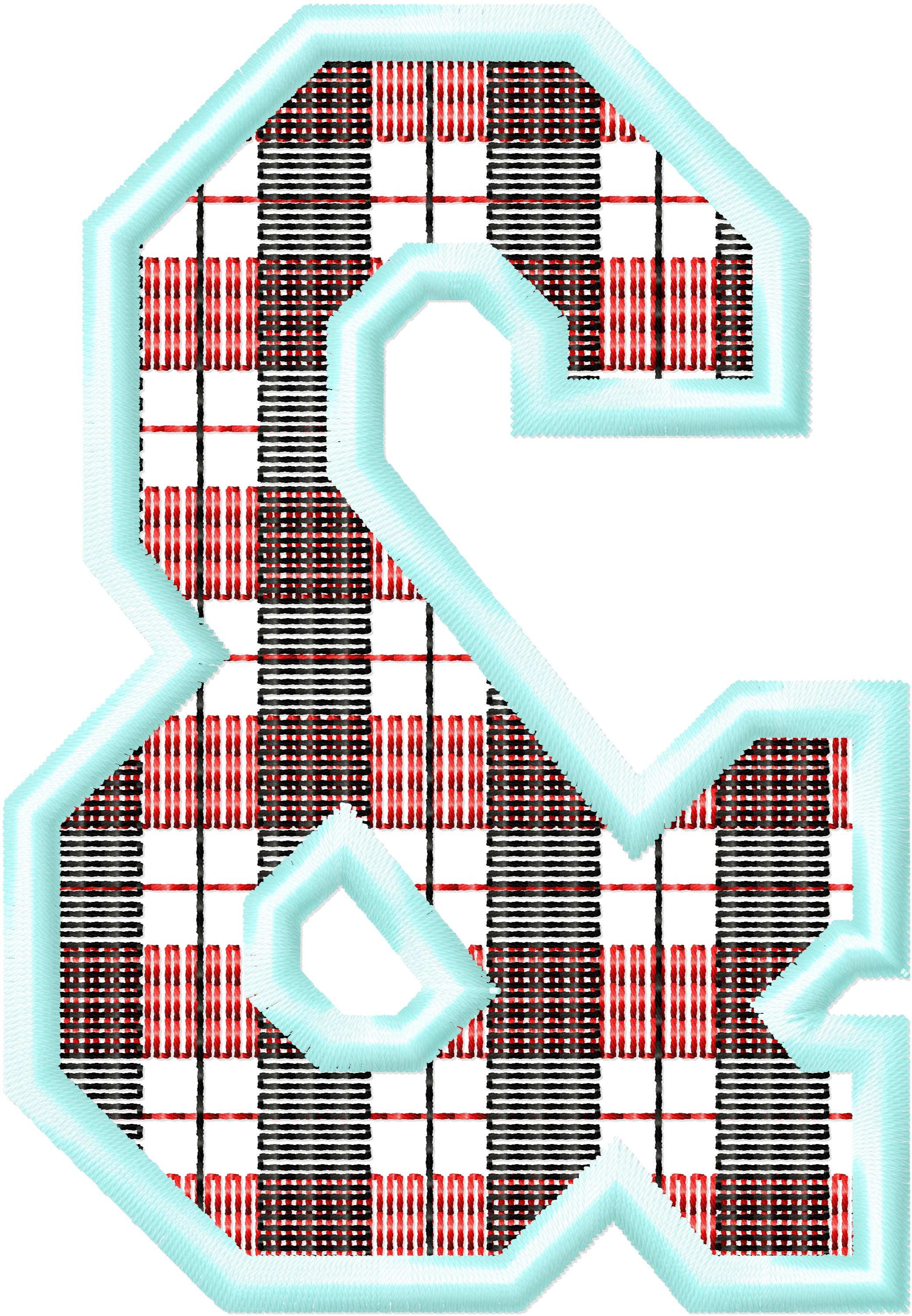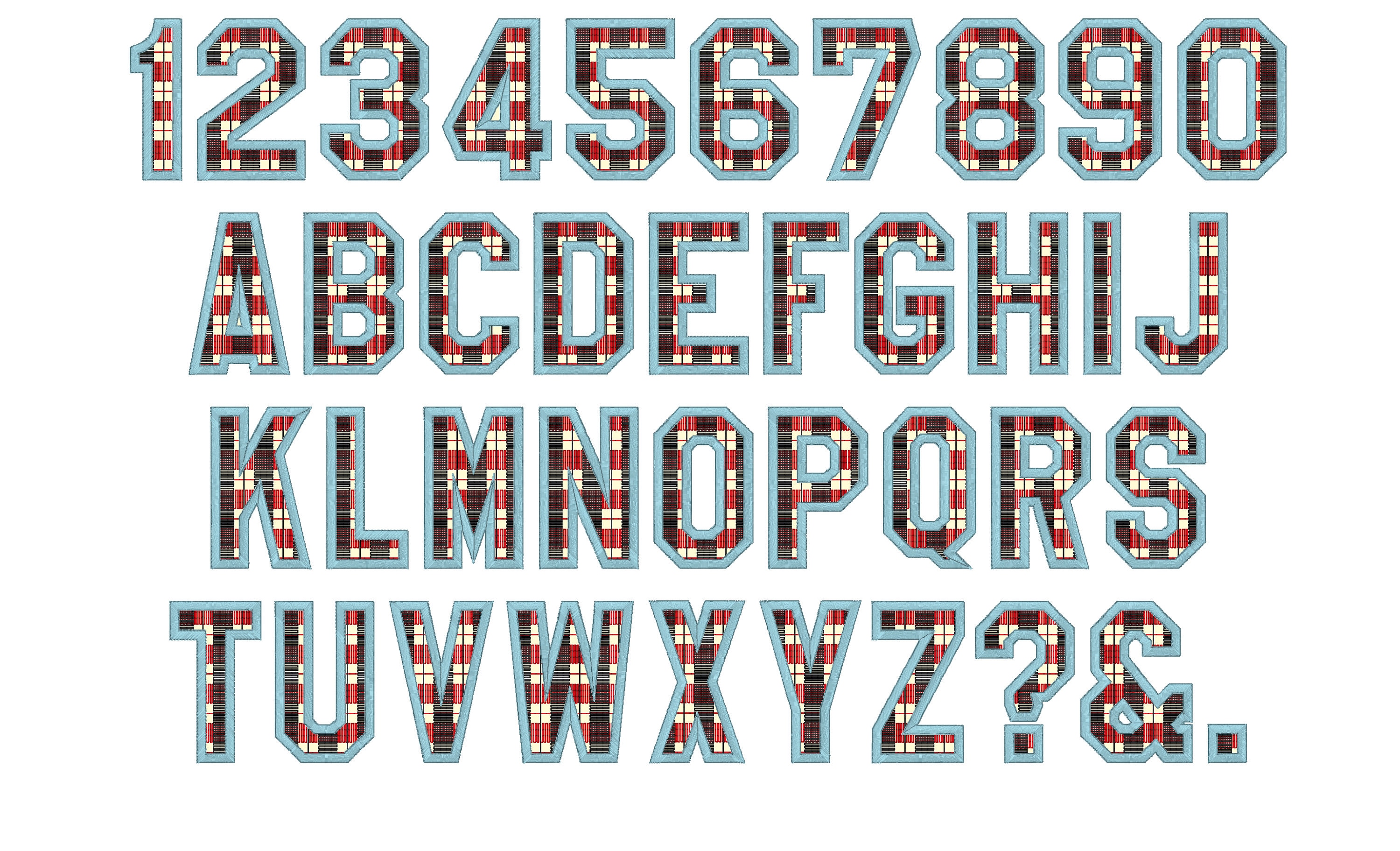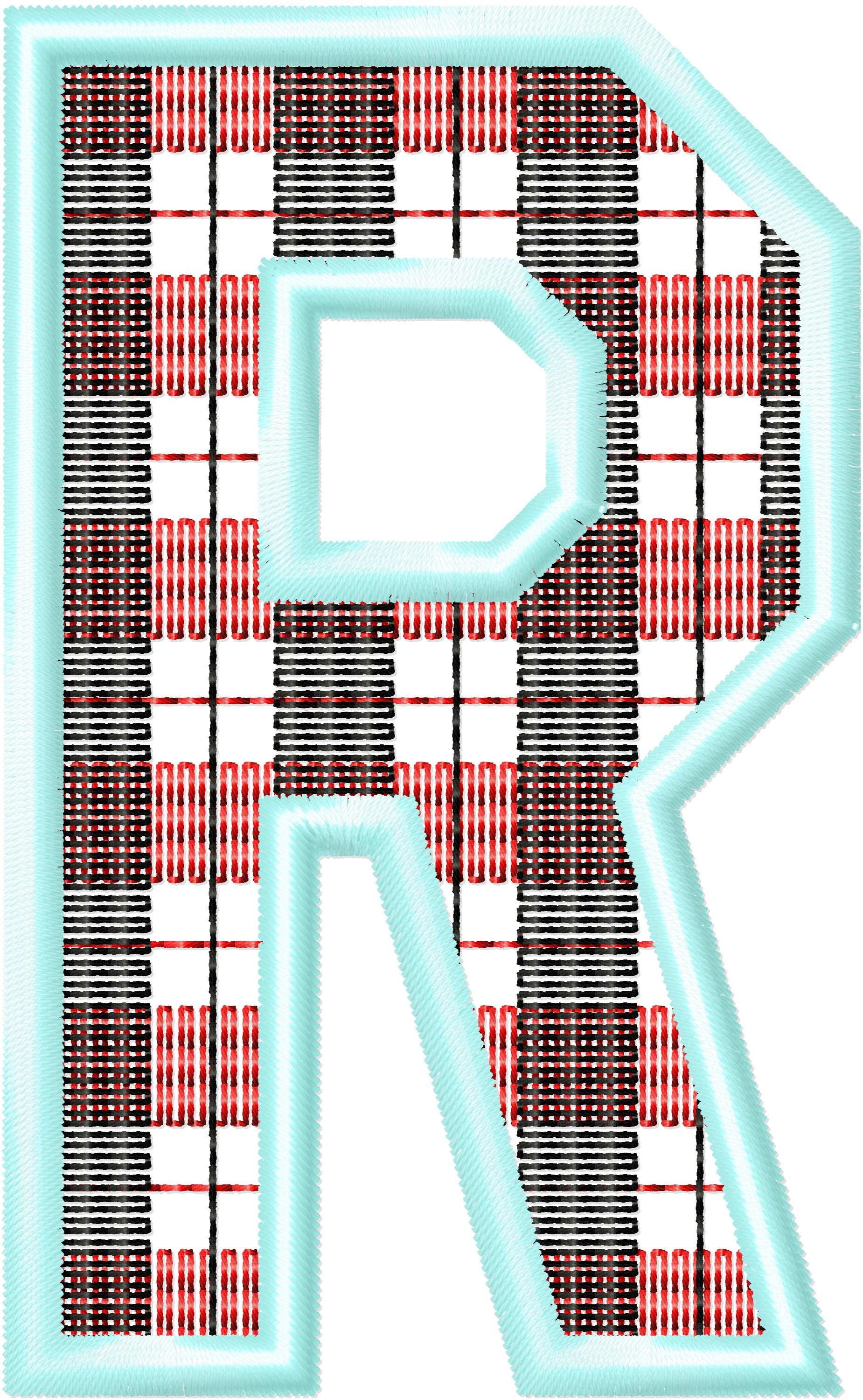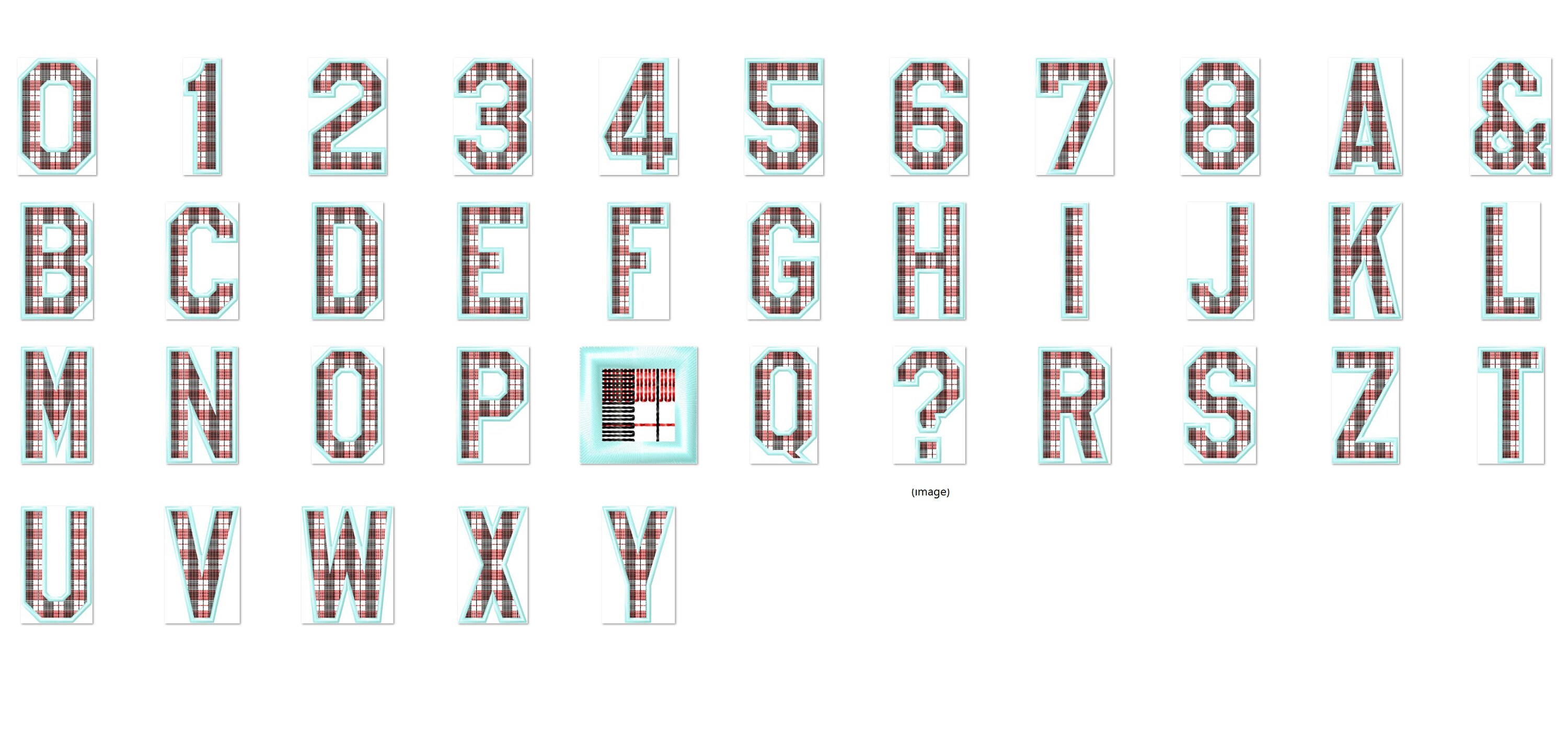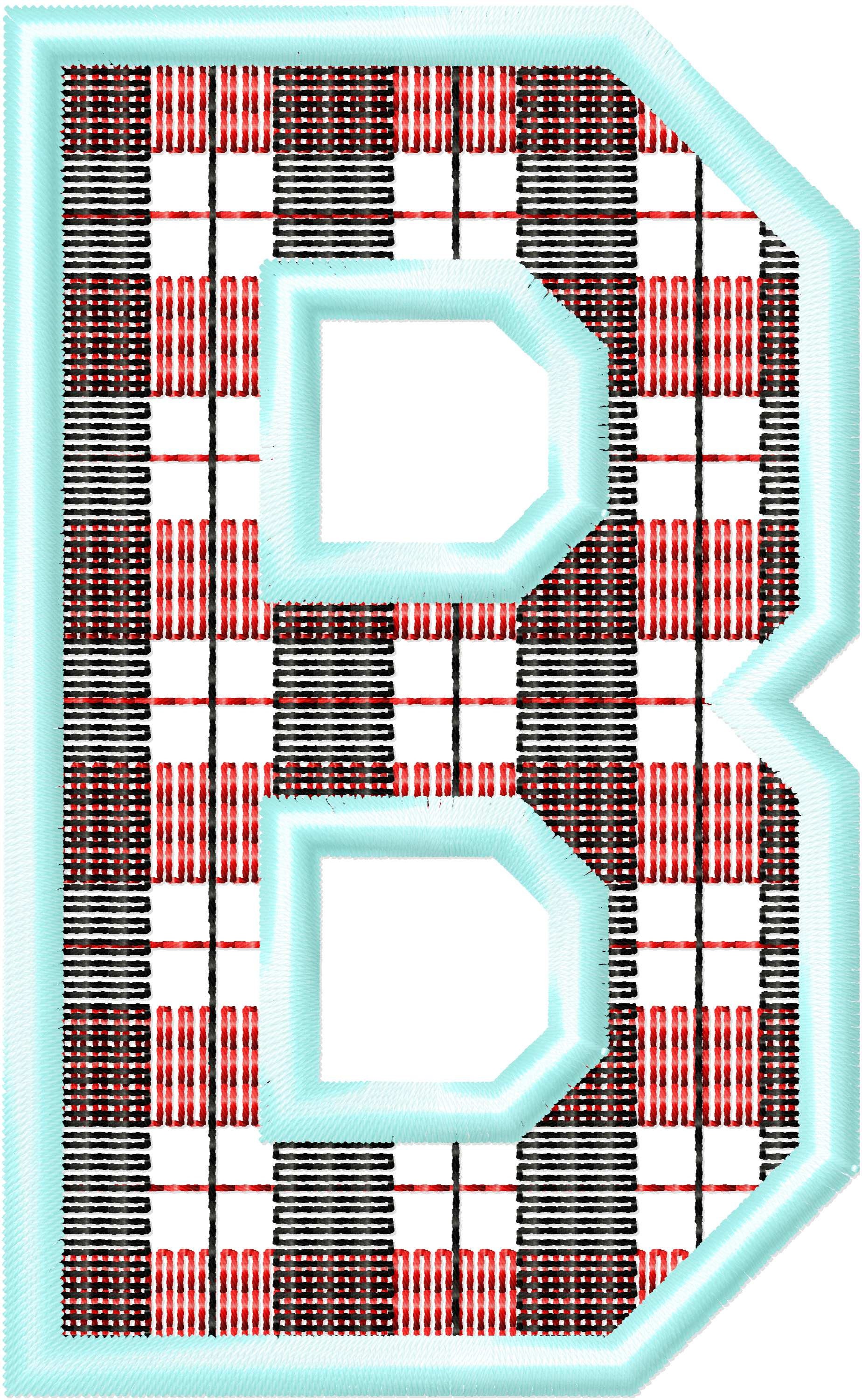
Buffalo Plaid Tartan Gingham Sport Font, letters and numbers, machine embroidery applique design 2, 3, 3.5, 4, 5, 6, 7in, BX
This is applique design and gingham plaids are part of the embroidery.